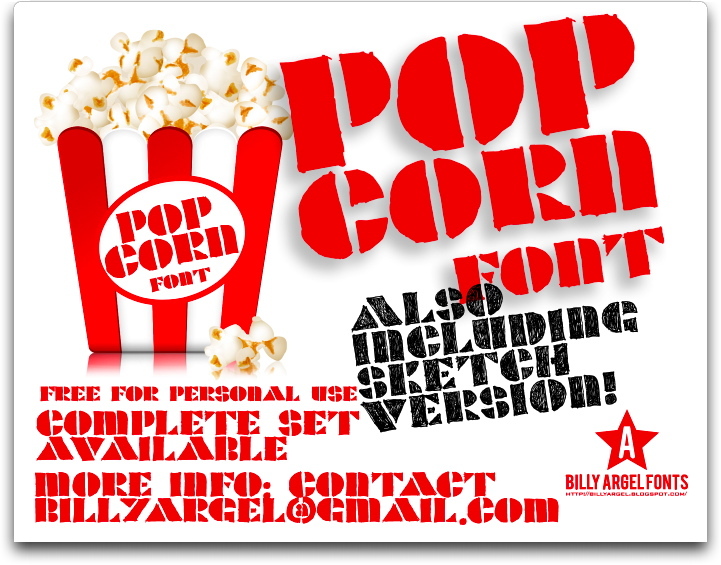
Popcorn Sketch Sketch by Billy Argel is a free eroded display font with broad, irregular capitals and dense, hand-scratched shading. The rough crosshatching gives each letter a woodcut-like surface.
The DIY concert-poster aesthetic suits gig flyers, album covers, and streetwear graphics, especially when a raw handmade texture is central to the design. It also fits horror-comedy titles and youth event branding, where the ragged edges and skewed shapes echo photocopied art and underground comics.